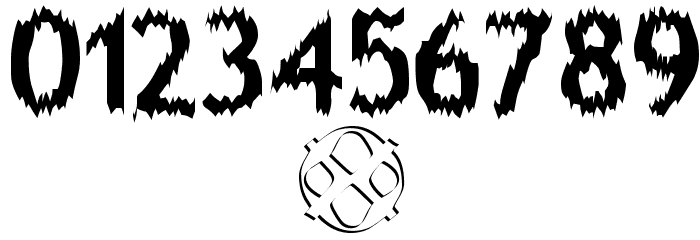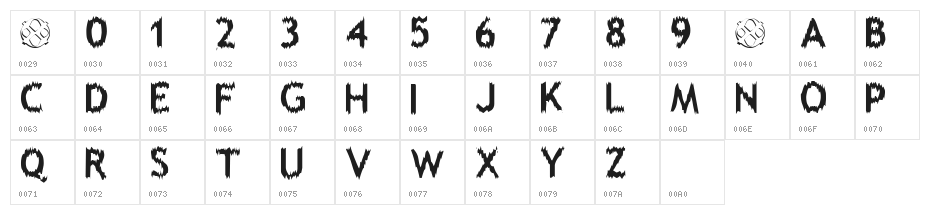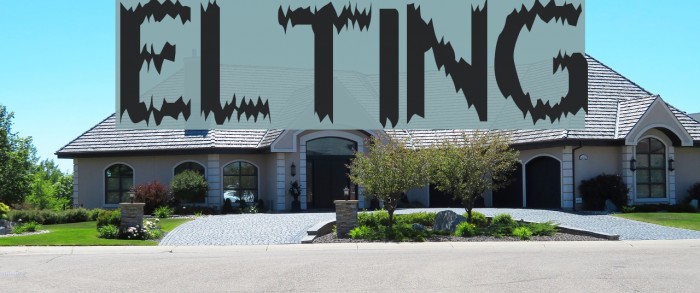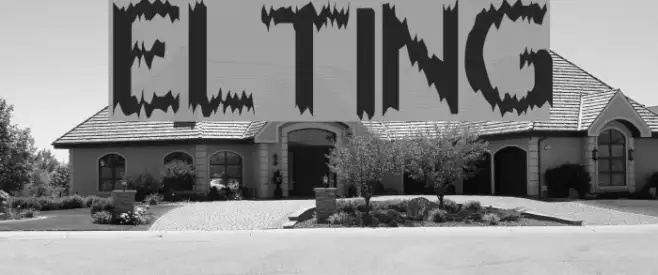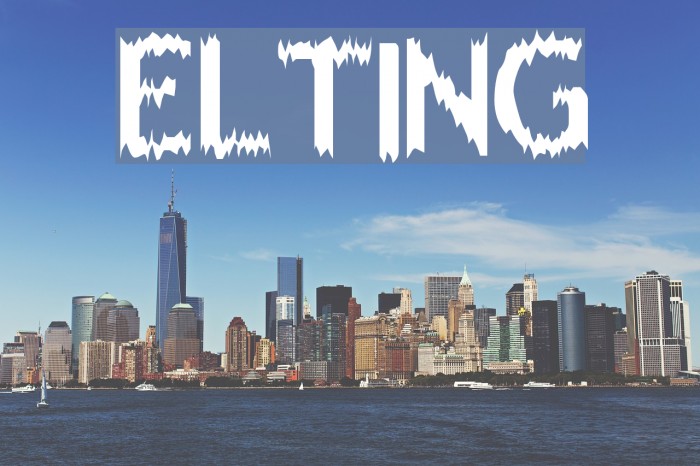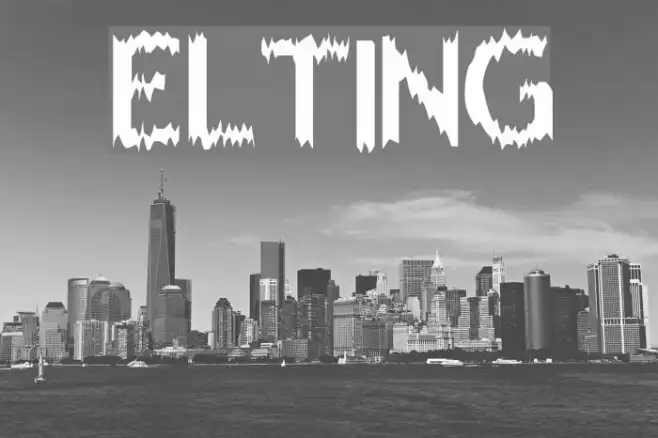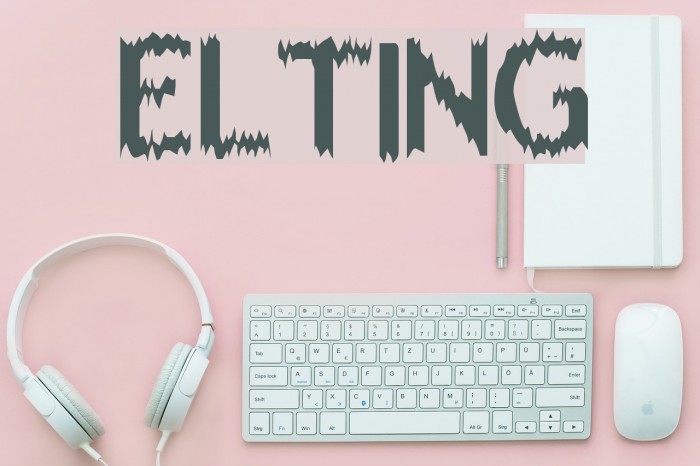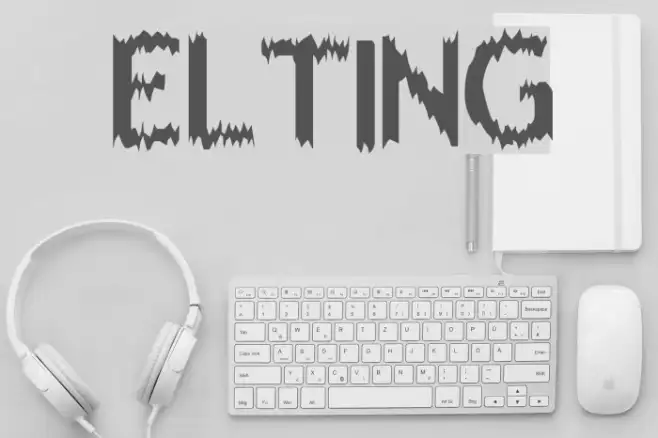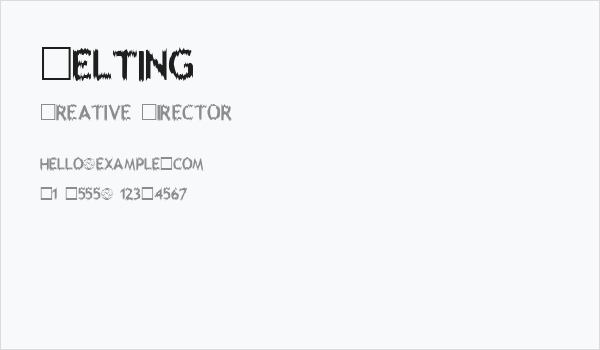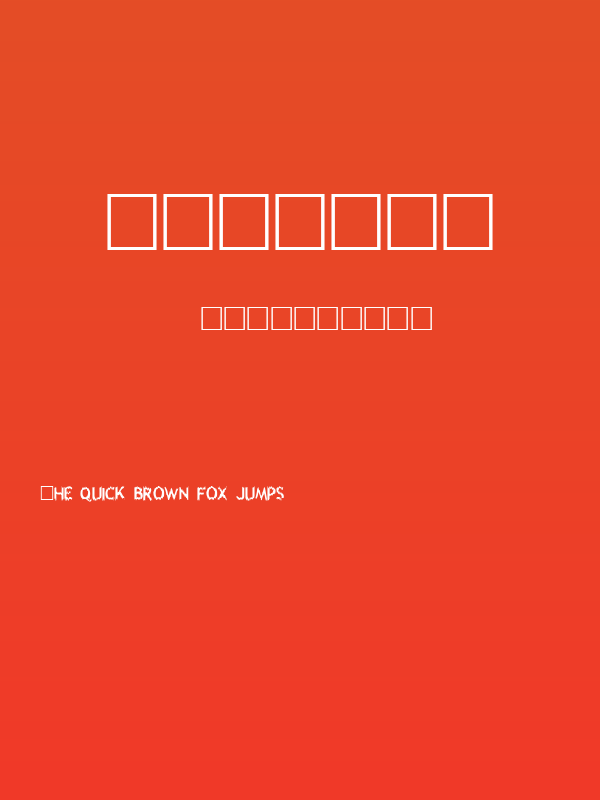
Melting Font
Melting Description
This font features a unique, dripping effect that gives the impression of letters melting or oozing. The jagged edges and irregular shapes create a dynamic and eye-catching appearance, making it ideal for themes related to horror, Halloween, or anything requiring a dramatic flair. The uppercase letters are bold and prominent, while the numbers maintain the same melting aesthetic, ensuring consistency across all characters. The overall style is distinctly decorative, with a playful yet eerie vibe that captures attention.
| Use Case | Headlines, Posters, Themed Events |
| Proposed Projects | Perfect for Halloween posters, horror-themed events, spooky invitations, or any project needing a dramatic and eerie touch. |